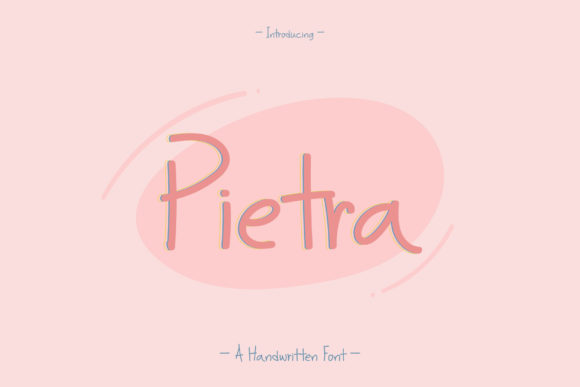
Unleash the Allure of Pietra: The Masterpiece of Script Fonts
In the realm of visual communication, fonts hold the power to transform ordinary words into captivating expressions of art. They possess the ability to evoke emotions, set the tone, and create a lasting impression on your audience. Among the myriad of font families, script fonts stand out with their graceful strokes, elegant curves, and timeless charm. And when it comes to script fonts, there's no equal to Pietra, the brainchild of the renowned font designer, Wanida Toffy.
Pietra, meaning "stone" in Italian, is a font that embodies the essence of strength and resilience, combined with an undeniable touch of elegance. Its meticulously crafted characters exude a sense of grace and sophistication, making it the perfect choice for designers, artists, and creative professionals seeking to elevate their projects to new heights.
A Symphony of Versatility: Pietra's Multifaceted Appeal
Whether you're a seasoned graphic designer or a casual hobbyist seeking to add a touch of flair to your creative endeavors, Pietra is the font that adapts to your every need. Its inherent versatility makes it suitable for a wide range of applications, from captivating posters that demand attention to elegant wedding invitations that exude romance.
Experience the Joy of Creation with Pietra
Unleash your creativity with Pietra and transform your designs into masterpieces. Let your imagination soar as you craft stunning logos that leave a lasting impression, eye-catching social media graphics that engage your audience, and personalized greeting cards that convey your heartfelt sentiments.
Pietra's intuitive design ensures that even beginners can harness its power to create designs that captivate and inspire. Its user-friendly nature makes it accessible to anyone with a passion for expressing themselves through visual art.
A Font that Speaks to the Heart
With Pietra, your designs will transcend mere aesthetics and become vessels of emotion, speaking directly to the hearts of your audience. Its delicate strokes evoke a sense of nostalgia, while its modern appeal ensures that your creations remain relevant and impactful.
Step into the realm of Pietra and discover a world where fonts are not just tools, but works of art in their own right. Elevate your designs, captivate your audience, and create a lasting legacy of visual brilliance.